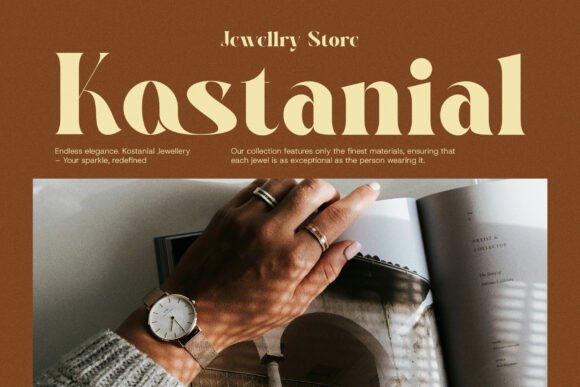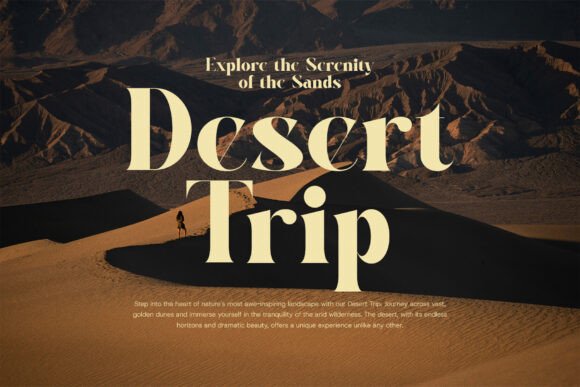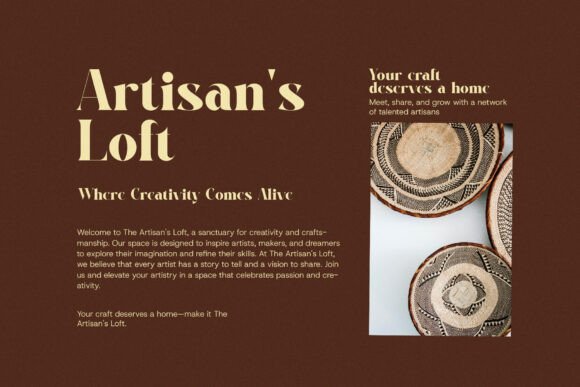
Introduction to Magsty Font
Magsty Elegant Serif is a sophisticated and contemporary typeface that effortlessly blends timeless charm with modern refinement.
Designed with precision and artistry, this font features graceful serifs, fluid curves, and distinctive ligatures that enhance its luxurious appeal Whether used for branding, high-end packaging, editorial design, or digital platforms, Magsty brings a touch of class and exclusivity to any project.
Key Features of Magsty Font
Why Choose Magsty Font?
Magsty Font offers exceptional quality and versatility, making it a valuable addition to your design toolkit. Whether you’re creating for personal projects or commercial use, Magsty Font delivers professional results.